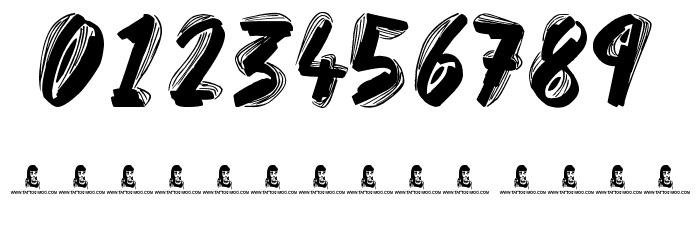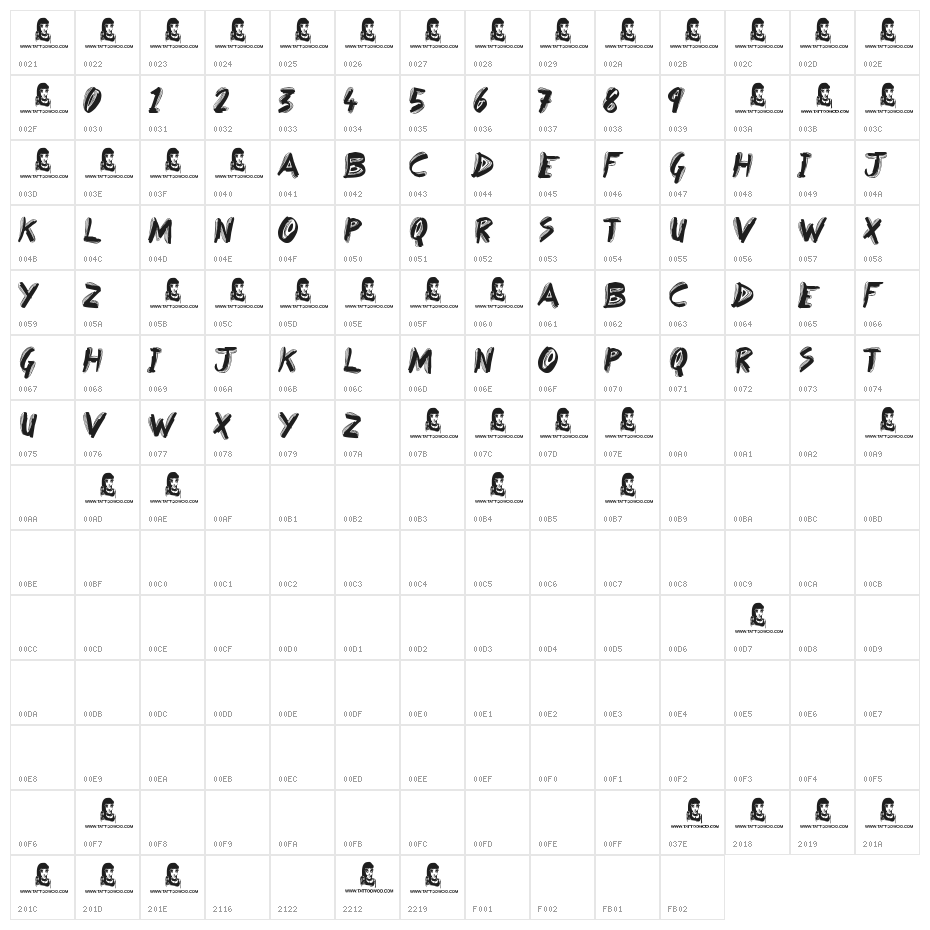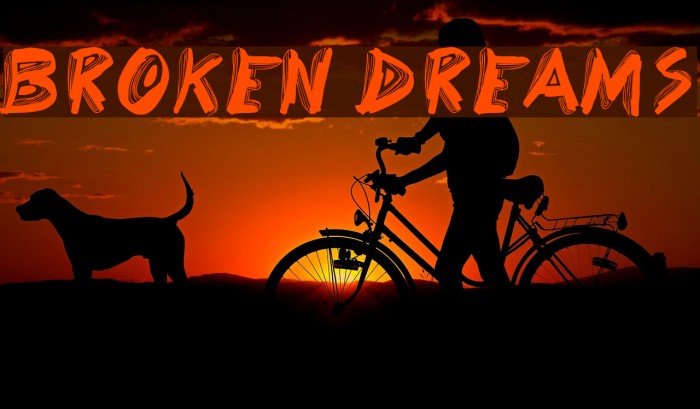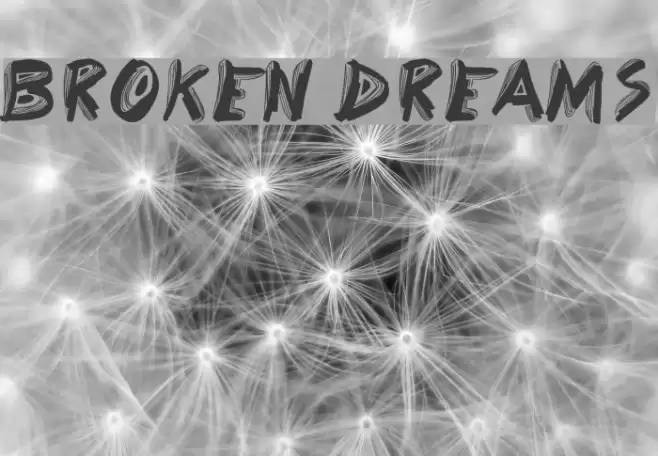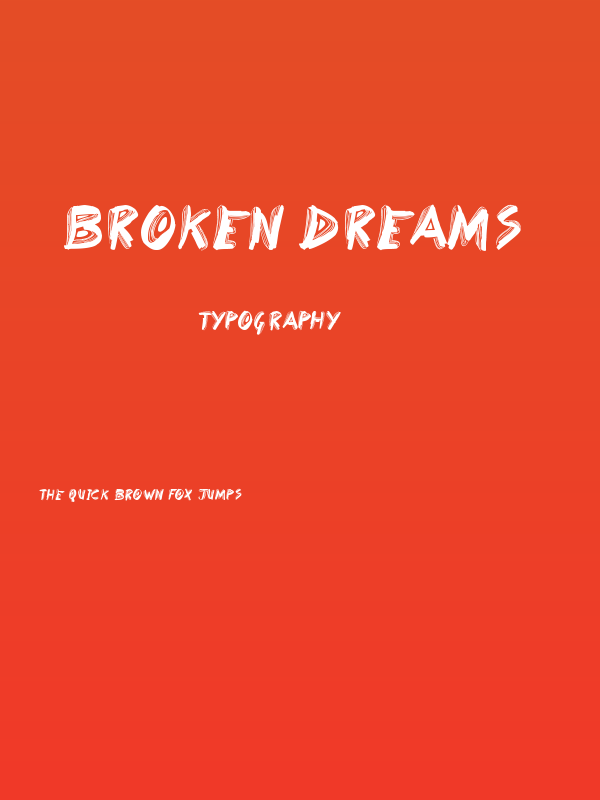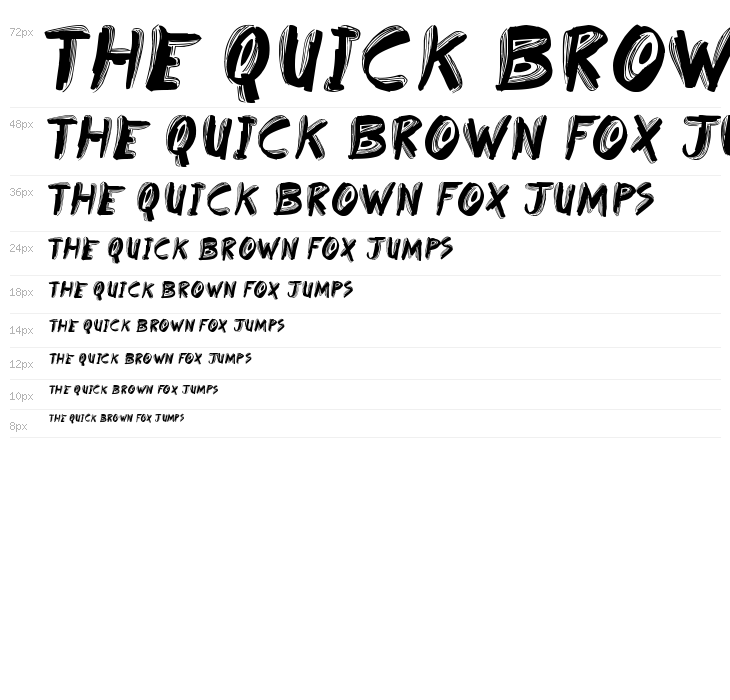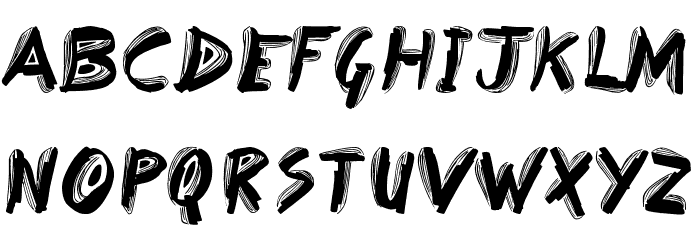
Broken Dreams Font
Broken Dreams Description
This font features a bold, expressive style with a hand-drawn appearance. The characters are dynamic and slightly irregular, giving a sense of movement and energy. The strokes are thick and varied, with a brush-like texture that adds depth and personality. The uppercase and lowercase letters maintain a consistent style, with a playful yet edgy feel. The numbers and special characters follow the same design principles, ensuring a cohesive look across all elements. This font is ideal for projects that require a bold statement and a touch of artistic flair.
| Proposed Projects | Perfect for posters, album covers, branding, and creative projects that need a bold, artistic touch. |